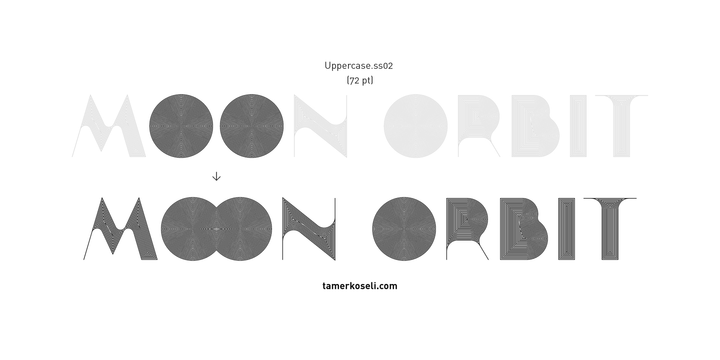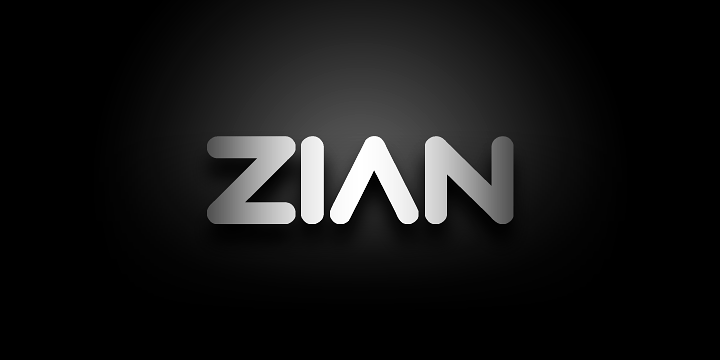
Siberian Font
Siberian
Siberian is a geometric sans-serif typeface created by Oleg Macujev and published by omtype that is inspired by the cold weather of Siberia. You’ll find 7 stylistic alternates perfect for magazine, poster, logo, display etc.
Gtek Font
Gtek
Gtek is a modern robotic typeface published by Qbotype in 2013, perfect for magazine, sci-fi, video game project etc. Enjoy!
GaGoo Font
GaGoo
GaGoo font is an experimental script type designed by Andrei Olaru and published by Kreativ Font. With its lines and bubbles, naive and childish look, this playful font can be used to create really cute designs.
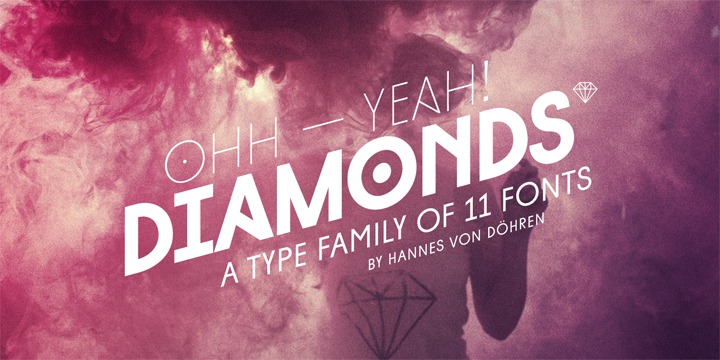
Fontatica 4F Font
Fontatica 4F
Fontatica 4F is a typeface created by Sergiy Tkachenko and published by 4th february in 2012.
Zarif Font
Zarif
Zarif is a typeface created by Tamer Koseli and published by Tamer Koseli. This font is perfect for brands, magazines, headlines and posters. Also, if you use OT-savvy applications, this 3 styles are accesible.
Future Font
Future
Future is a typeface created & published by Manuel Ramos. If you are looking for a futuristic look for your logos, designs, buy this powerful font, Future!
Zian Font
Zian
Zian is a typeface created by Carlos Metteoli and published by Q-BO in 2012.
Woodie Font
Woodie
Woodie is a typeface created by Mateusz Machalski and published by Borutta in 2012.
SomaSkript Font
SomaSkript
SomaSkript is a font published by ArtyType . It is a extension to the basic Somatype font design.
Lust Font
Lust
Lust is a typeface created by Neil Summerour and published by Positype in 2012. This font is a typographic guilty pleasure, you can discover all kinds of feelings.
Diamonds Font
Diamonds
Diamonds is a font created by Hannes von Dohren and published by HVD Fonts who wants to be an experimental search for geometric new letterforms.